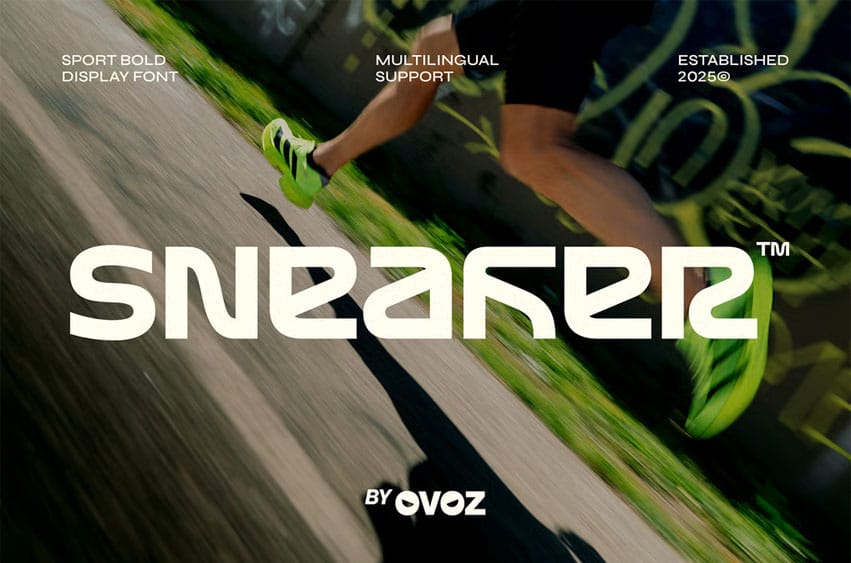
Sneaker Font is a sport-bold display font crafted for fast-paced visuals and energetic athletic branding. With its smooth curves and agile, forward-moving forms, this typeface perfectly complements sports identities, racing graphics, football highlights, baseball teams, basketball posters, and soccer layouts. Its sporty structure boosts fitness campaigns, gym promotions, golf events, and bold sport advertisements that need speed, clarity, and dynamic motion. Designed with an athletic rhythm, SNEAKER™ brings a confident flair to any project focused on action and performance.
From jersey numbers to biker graphics, from hockey tournament visuals to fight-night promotions, SNEAKER™ delivers a modern athletic attitude that blends style with strength. The unique letter shapes create a powerful sporty presence ideal for gym apparel, race merchandise, athletic branding, and high-energy sports campaigns. Whether you’re designing for competitive events or crafting sleek, movement-driven visuals, SNEAKER™ ensures every message stands out with precision, momentum, and a fearless sporty identity.
Bold Moves, Strong Letters — where dynamic sport energy meets modern precision to create a fearless competitive identity.